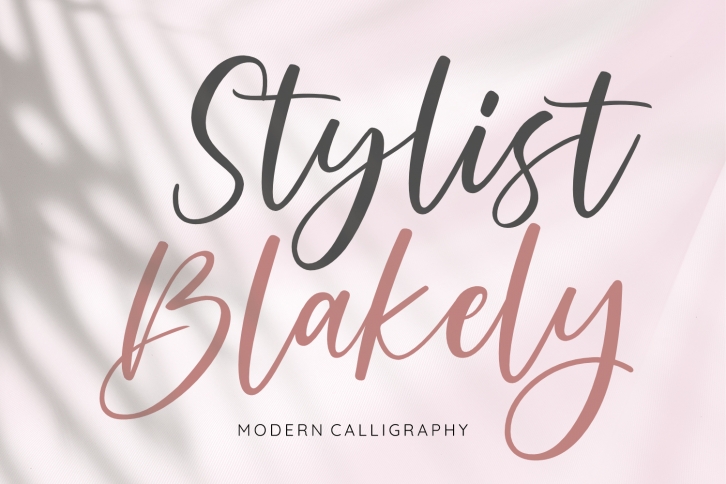
Stylist Blakely is a lovely modern calligraphic font. Bring your creative ideas to life with this charming typeface! It is perfect for wedding designs, product design, quotes, logo making, crafts, and many more.
This font is PUA encoded, so you can easily access all the glyphs and swashes!